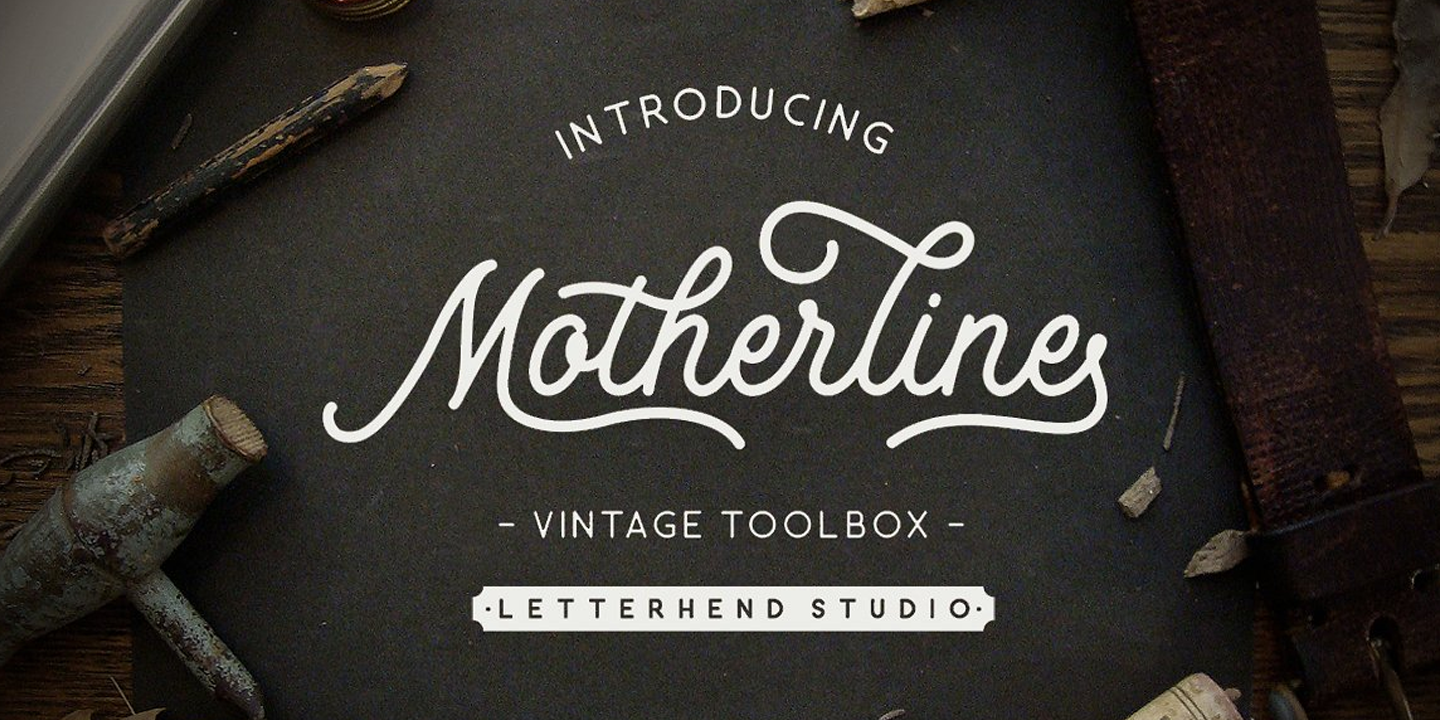
Motherline Font is perfect for maternal healthcare branding, family-centered service marketing, motherhood support organizations, nurturing childcare center signage, maternity product packaging, gentle parenting resource publications, family wellness clinic promotions, maternal education materials, loving family photography studios, and caring family support services. Its nurturing maternal character makes it ideal for projects requiring motherly warmth and family-centered authenticity.
What makes Motherline Font exciting is its tender embodiment of maternal love and family connection with flowing letterforms and nurturing characteristics that capture the essence of motherhood and family bond excellence. The font features gentle curves, caring character details, and protective stroke patterns that create authentic maternal atmosphere and family appeal. Its loving personality brings warmth and security to contemporary designs while maintaining the clarity essential for family communications and maternal service presentations. The carefully crafted nurturing elements ensure emotional connection while preserving the distinctive character that embodies the essence of motherly care and family excellence.
Motherline Font comes in multiple caring variations including Light, Regular, Medium, Bold, and Tender styles. Each family member maintains the distinctive maternal character while offering comprehensive flexibility for family typography and nurturing brand system development. The complete font family includes alternate characters, family symbols, and caring decorative elements that provide extensive tools for creating immersive maternal design experiences and authentic family brand storytelling.
Whether you're developing family brands, maternal services, or child-focused projects, Motherline Font Free Download provides the nurturing warmth needed to communicate with families and parents who appreciate maternal care and family-centered excellence. The font's caring appeal resonates with mothers, family service providers, and childcare professionals seeking authentic maternal credibility and family sophistication. Its comprehensive character set includes family symbols and caring marks, making it perfect for creating complete maternal brand systems and memorable family storytelling across diverse family applications and care-focused design projects that celebrate motherhood and family excellence.